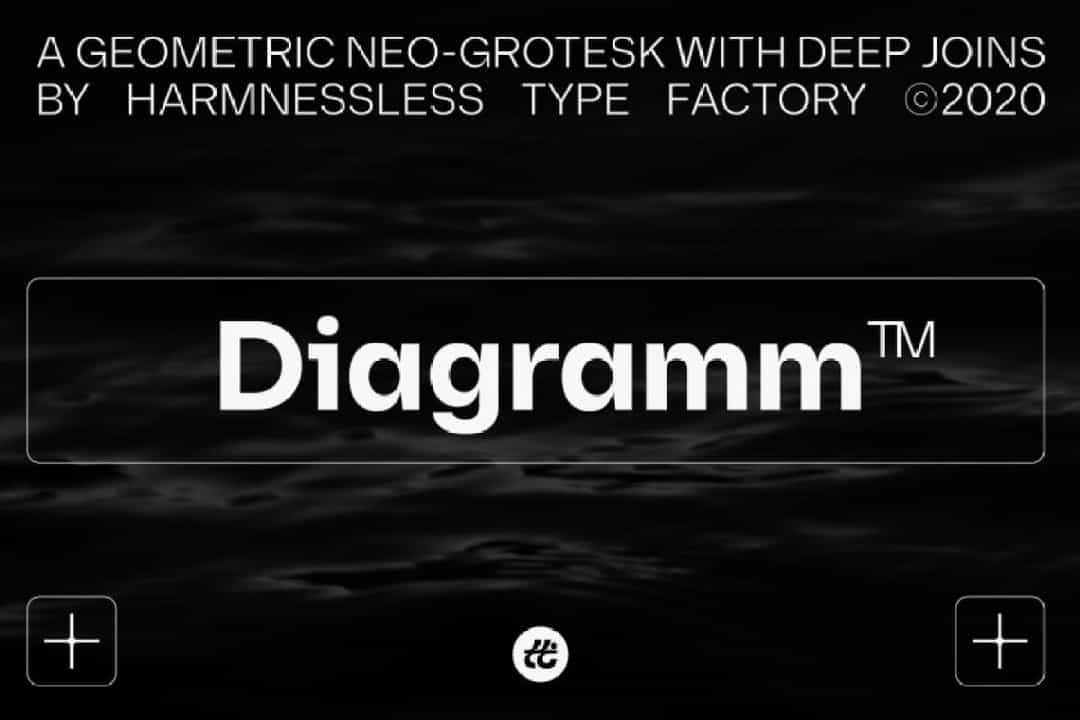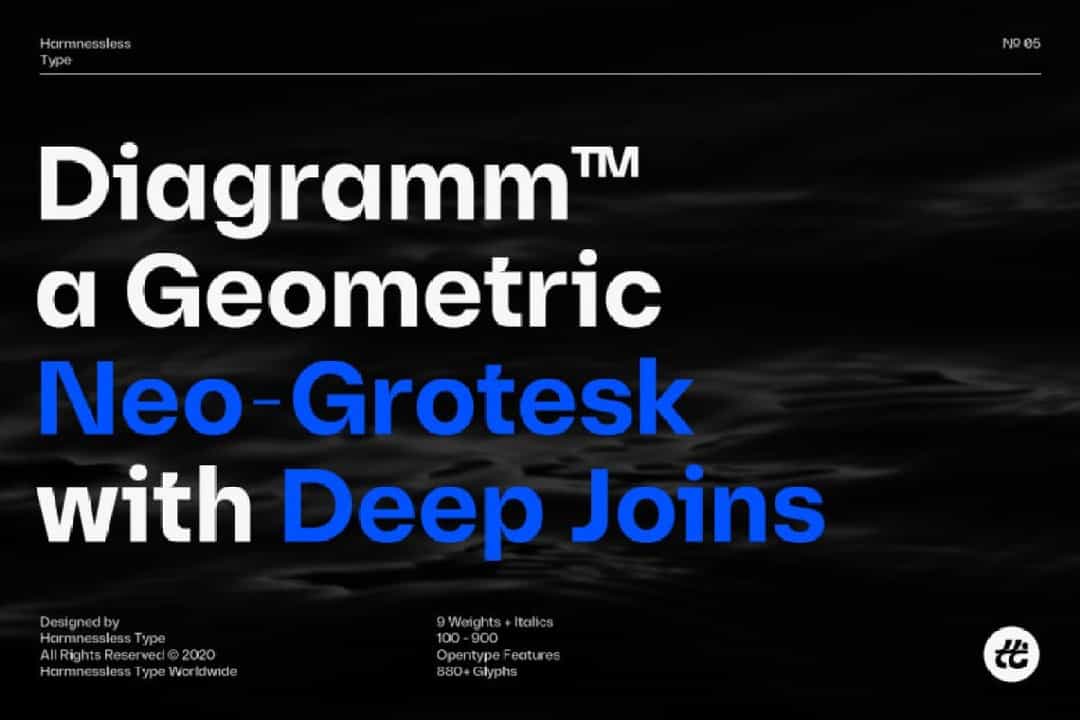
HarmnesslessType has created a diagram that is of the geometric Neo-Grotesk style with a small and deep join. It is supplied in nine styles, impacting 18 weights from Thin to Black and comes with italicstyles. The diagram might look familiar yet it is a modern and contemporary design while maintaining the modern and contemporary look.